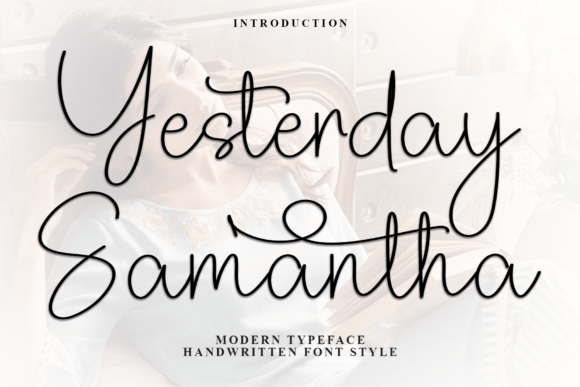
Yesterday Samantha Font: Elevate Your Designs with a Unique and Versatile Typeface
In the world of typography, fonts play a crucial role in conveying messages, expressing emotions, and creating visual identities. Among the numerous fonts available, Yesterday Samantha Font stands out for its distinctive and eye-catching design. This beautiful font is crafted with a soft, unique touch, making it a valuable asset for designers, artists, and creatives seeking to add a personal touch to their work.
The Distinctive Characteristics of Yesterday Samantha Font
Yesterday Samantha Font boasts a range of distinctive strokes that give it a special character, setting it apart from other fonts. Its unique design elements make it meaningful and versatile, suitable for a wide range of applications. Whether you’re working on a design project, crafting a handmade card, or creating digital content, this font is sure to impress.
Key Features of Yesterday Samantha Font
- Soft and Unique Touch: The font’s gentle curves and rounded edges create a soft, inviting appearance that captures the reader’s attention.
- Distinctive Strokes: The font’s strokes are carefully crafted to give it a distinctive character, making it perfect for designs that require a personal touch.
- Versatile and Meaningful: Yesterday Samantha Font is designed to be versatile and meaningful, making it suitable for a wide range of creative projects.
- Variety of Characters: The font comes with a range of characters, ensuring that you have the flexibility to create unique and engaging designs.
Applications of Yesterday Samantha Font
Yesterday Samantha Font is an incredibly versatile typeface that can be used in a variety of applications, including:
Design Projects
- Branding and Advertising: Use Yesterday Samantha Font to create eye-catching logos, posters, and advertisements that capture your audience’s attention.
- Digital Content: Enhance your blog posts, social media graphics, and website designs with this beautiful font.
- Print Materials: Create stunning brochures, flyers, and business cards that showcase your brand’s personality.
Crafts and Creative Works
- Handmade Cards: Add a personal touch to your handmade cards and gift tags with Yesterday Samantha Font.
- Scrapbooking: Use this font to create beautiful journal pages, photo albums, and scrapbook designs.
- DIY Projects: Incorporate Yesterday Samantha Font into your DIY projects, such as crafting, woodworking, or sewing.
Benefits of Using Yesterday Samantha Font
By incorporating Yesterday Samantha Font into your designs, you can:
Enhance Your Designs
- Capture Your Audience’s Attention: The font’s unique design and soft touch are sure to capture your audience’s attention and leave a lasting impression.
- Stand Out from the Crowd: Yesterday Samantha Font’s distinctive character helps you stand out from the crowd and establish a unique visual identity.
- Convey Emotions and Messages: This font’s gentle curves and rounded edges create a warm and inviting appearance, perfect for conveying emotions and messages.
Increase Engagement and Conversion
- Boost Engagement: Yesterday Samantha Font’s eye-catching design can help increase engagement and encourage your audience to interact with your content.
- Improve Conversion Rates: By creating visually appealing designs with this font, you can improve conversion rates and achieve your goals.
Yesterday Samantha Font is a beautiful and versatile typeface that can elevate your designs and creative projects. Its unique design, soft touch, and distinctive strokes make it a valuable asset for designers, artists, and creatives. With its compatibility with various applications and platforms, this font is perfect for a wide range of products and uses. By incorporating Yesterday Samantha Font into your designs, you can capture your audience’s attention, convey emotions and messages, and achieve your goals.